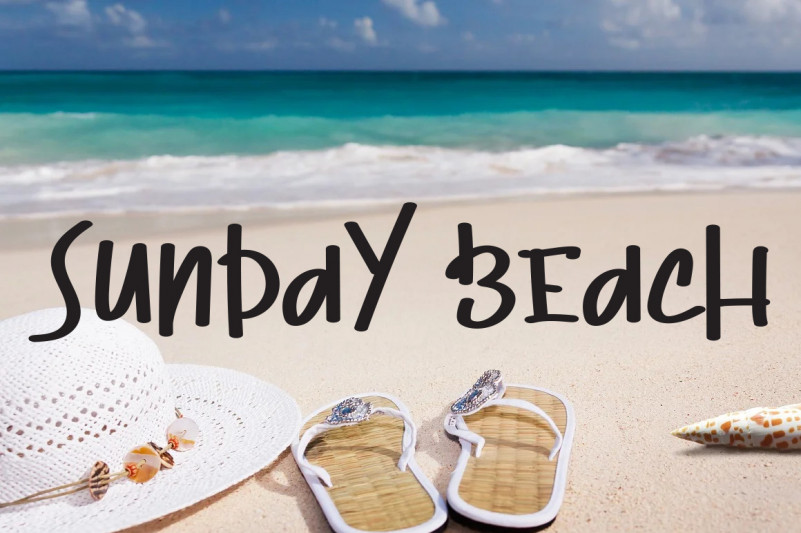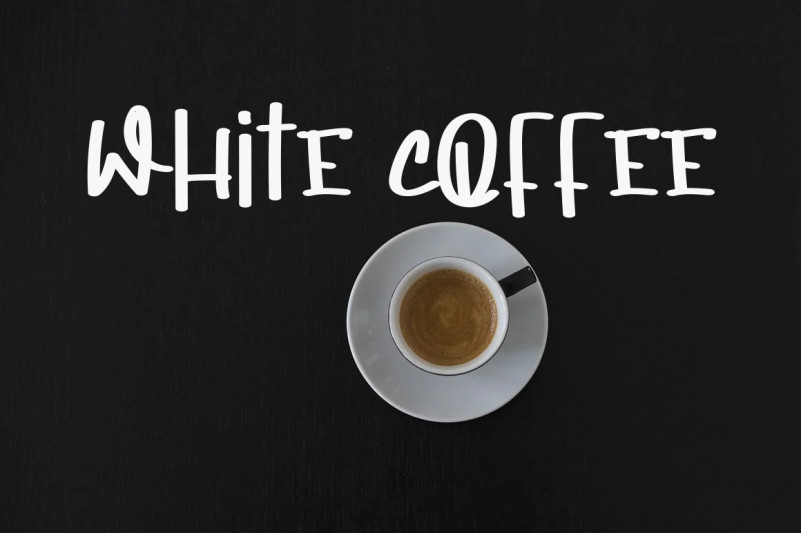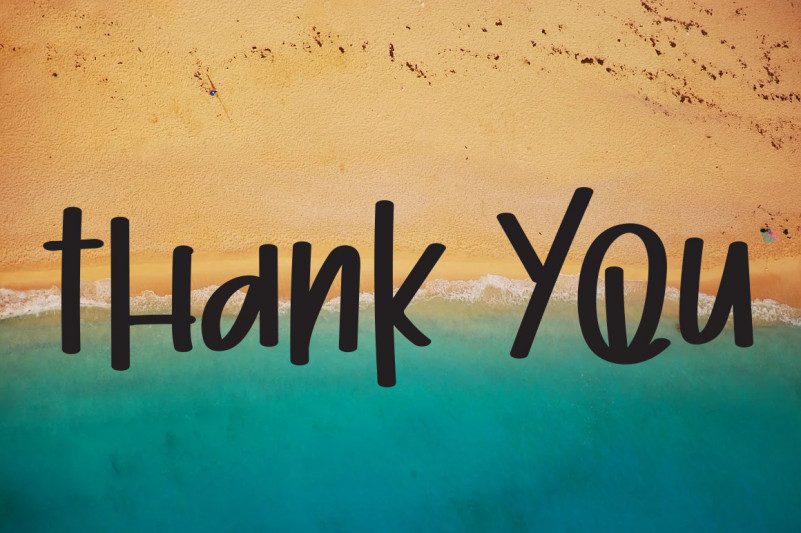
Summer Week Font
It’s a fun, quirky and sweet handwritten font. Whether you are using it for cartoon-related designs, children’s games, quotes, titles, brand names, book covers, posters, or just any creation that requires a touch of beauty, this font is a great choice.